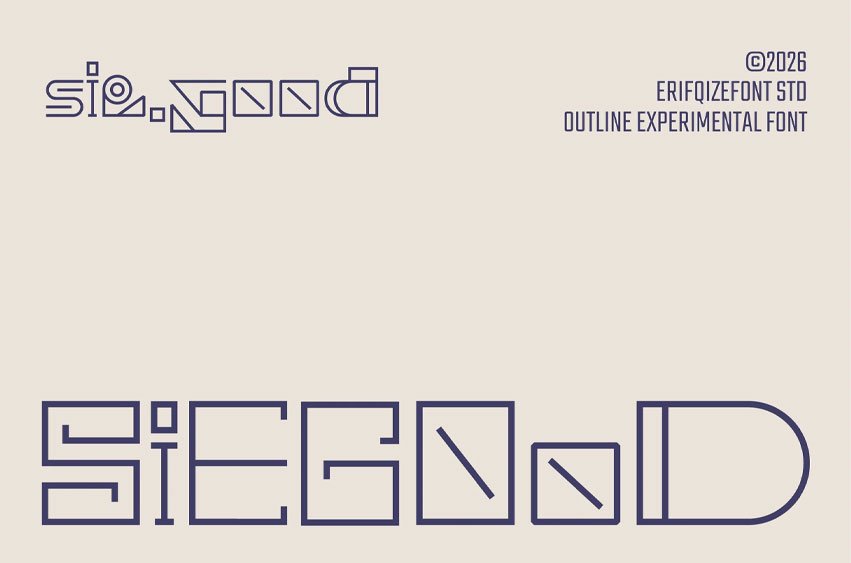
Siegood Font is an outline experimental display typeface built from distinctive geometric structures and unconventional letterforms. Its monoline outline style, squared construction, rounded terminals, and modular details create a futuristic visual language that feels clean, technical, and expressive.
Designed for bold creative projects, Siegood works beautifully for sci-fi posters, technology branding, album covers, gaming graphics, editorial titles, fashion campaigns, logos, and experimental layouts. Each character brings a unique architectural rhythm, making the typeface ideal for designs that need a modern, unconventional, and memorable identity.